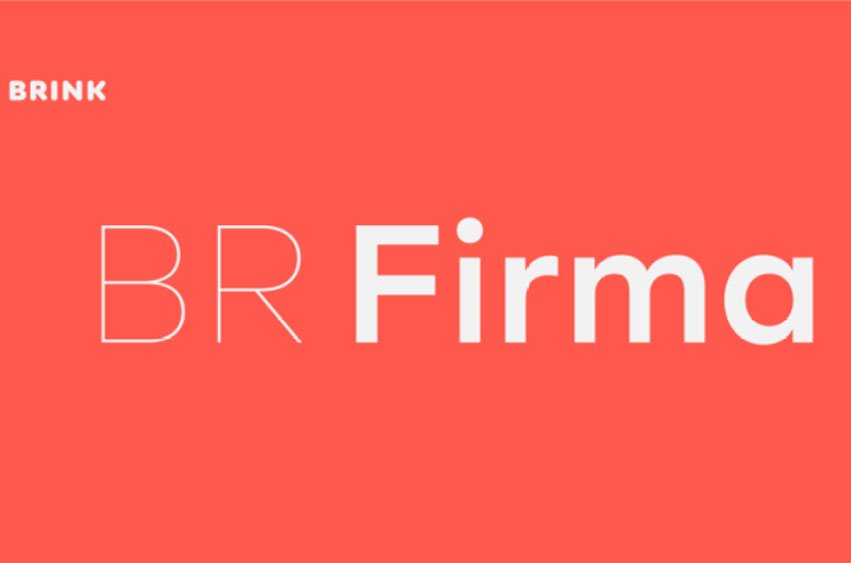
BR Firma Font
BR Firma Font is an 8-weight geometric sans serif font family that ranges from Thin up to Black with matching italics. It features an Extended Latin character set which covers over 200 related languages; furthermore, BR Firma also provides advanced typographic support via features like case sensitive forms as well as fractions with slashed zeros.